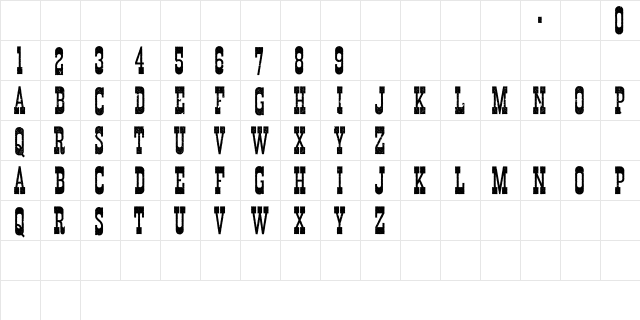
Durango Western Eroded Regular
Design Context for Durango Western Eroded Typeface
Durango Western Eroded echoes the hand-painted signage and woodblock typography of the American frontier, with a warm, rugged personality.
A natural fit for craft spirits, ranch branding, rodeo events, and Americana-inspired design work.
Font Pairing: Combine Durango Western Eroded with a simple slab or neutral sans — period-accurate companions reinforce the vintage feel without competing for attention.
Pro Tip: Use Durango Western Eroded for short, impactful bursts of text — it shines in poster headlines and product names rather than extended copy.